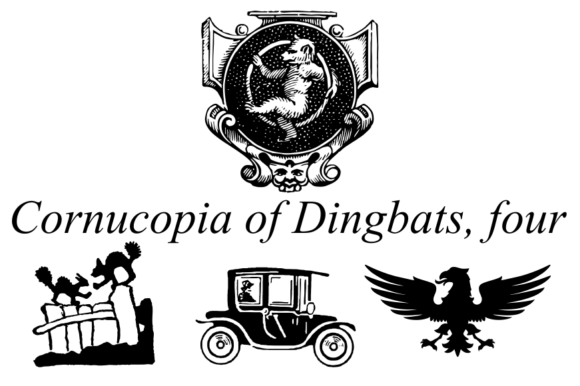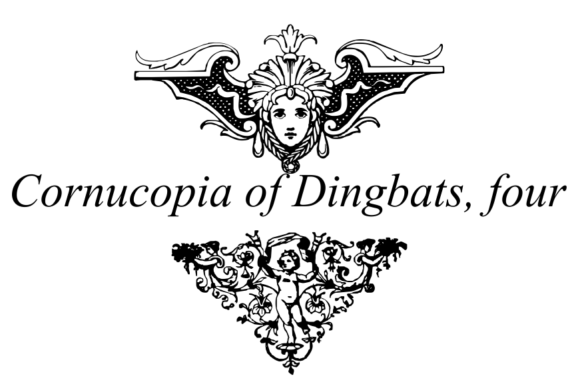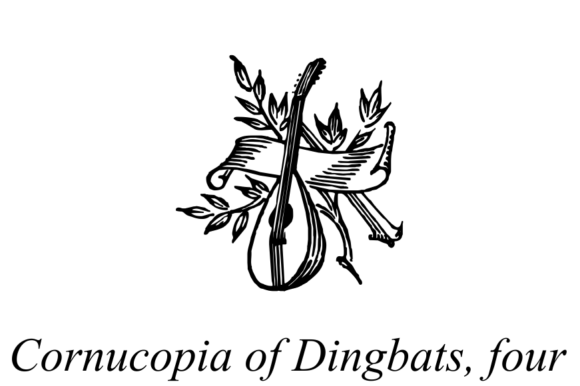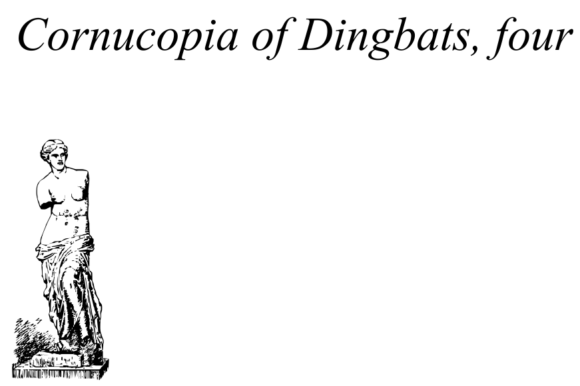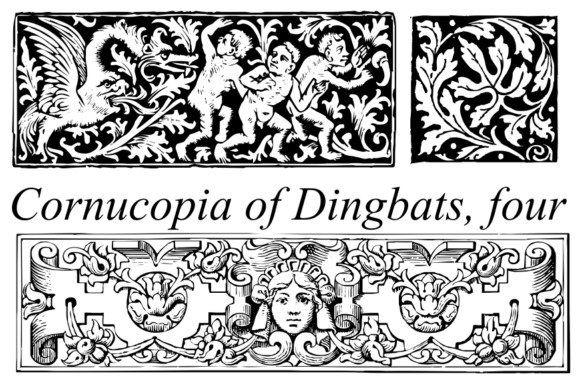
Cornucopia of Dingbats Four Font: A Treasure Trove of Vintage Ornaments
Are you a designer, crafter, or DIY enthusiast looking for a unique and versatile font to add a touch of vintage charm to your projects? Look no further than the Cornucopia of Dingbats Four font, a stunning collection of vintage dingbats and ornaments that will transport you back in time.
What is Cornucopia of Dingbats Four?
Cornucopia of Dingbats Four is a vintage dingbats and ornaments font that features a vast array of intricate illustrations, including borders, frames, and decorative motifs. This font is perfect for crafters, designers, and anyone looking to add a touch of nostalgia to their work.
A Brief History of Dingbats
Dingbats are a type of typographic symbol or ornament that originated in the early days of printing. These decorative elements were used to add visual interest and flair to text, and were often used in combination with traditional typefaces. Over time, dingbats evolved to include a wide range of illustrations, from simple geometric shapes to intricate and detailed designs.
What Makes Cornucopia of Dingbats Four Special?
Cornucopia of Dingbats Four is a standout font that offers a unique combination of features, including:
- Vintage charm: This font is inspired by classic dingbats and ornaments from the past, making it perfect for projects that require a nostalgic or retro feel.
- Intricate illustrations: The font features a wide range of intricate illustrations, including borders, frames, and decorative motifs, making it perfect for designers and crafters who want to add visual interest to their work.
- Versatility: Cornucopia of Dingbats Four can be used for a wide range of projects, from digital designs to print projects, and can be easily customized to fit your specific needs.
How to Use Cornucopia of Dingbats Four
Cornucopia of Dingbats Four is easy to use and can be incorporated into a wide range of projects, including:
- Digital designs: Use this font to add a touch of vintage charm to your digital designs, including social media graphics, blog posts, and website headers.
- Print projects: This font is perfect for print projects, including invitations, greeting cards, and scrapbooking pages.
- Crafting: Cornucopia of Dingbats Four can be used for a wide range of crafting projects, including paper crafting, card making, and journaling.
Tips and Tricks for Getting the Most Out of Cornucopia of Dingbats Four
Here are a few tips and tricks for getting the most out of Cornucopia of Dingbats Four:
- Experiment with different sizes and colors: This font can be used in a wide range of sizes and colors, so don’t be afraid to experiment and find the perfect combination for your project.
- Combine with other fonts: Cornucopia of Dingbats Four can be paired with other fonts to create a unique and visually interesting design.
- Use as a design element: This font can be used as a design element, rather than just as a font, to add visual interest and texture to your project.